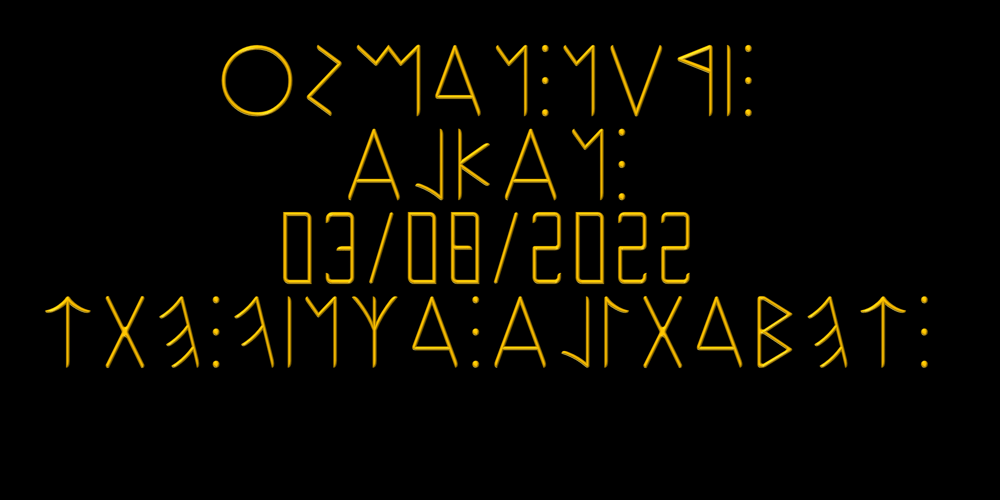
Ongunkan Varna Vinca Font Family was designed by Osman Nuri ALKAN and published by Runic World Tamgacı. Ongunkan Varna Vinca contains 1 styles and family package options. The Vinča script is a cache of symbols found belonging to the Vinča culture of the central Balkans over 7000 years ago. The symbols have been a topic of debate amongst historians.The Tărtăria tablets are three tablets discovered in 1961 in the village of Tărtăria(Hungarian: Alsótatárlaka). This is about 30 km (19 mi) from Alba Iulia in Romania.The tablets, dated to around 5300 BC, have symbols inclay: the Vinča symbols. Some claim they are a yet undeciphered language. If this is so, they would be the earliest known form of writing. In 1908 similar symbols were found during excavations, by Miloje Vasić (1869–1956) in Vinča. This is a suburb of Belgrade (Serbia), some 300 km from Turdaș. Later, more were found in another part of Belgrade. Since 1875 over one hundred and fifty Vinča sites have been found in Serbia alone. Many, including Vinča itself, have not been fully excavated. The culture of the whole area is called the Vinča culture. Although some of these symbols look exactly the same as some letters in Etruscan, Greek, and Aramaic, they are generally regarded as a an original, independent development.